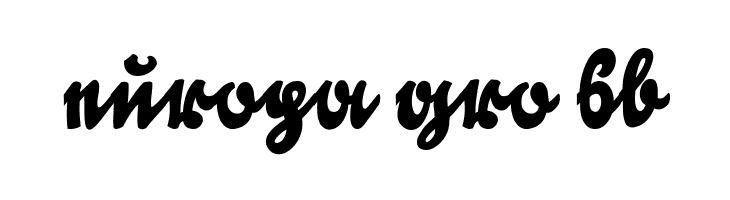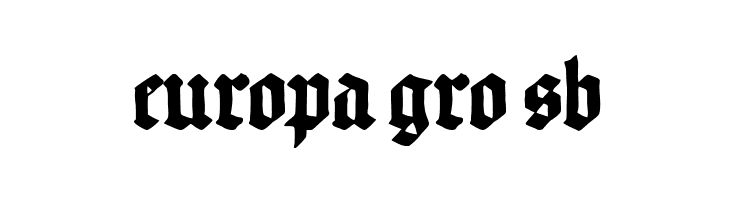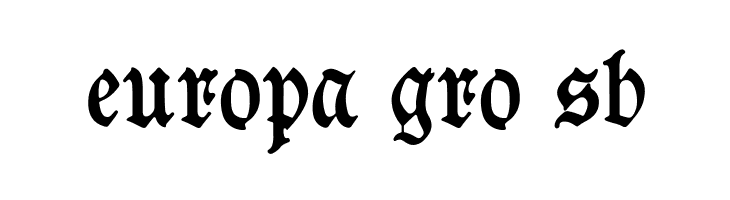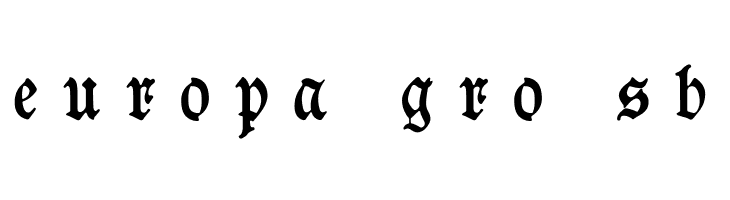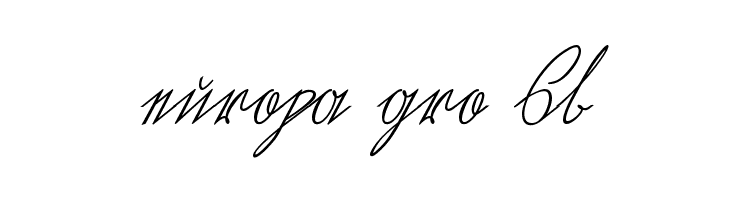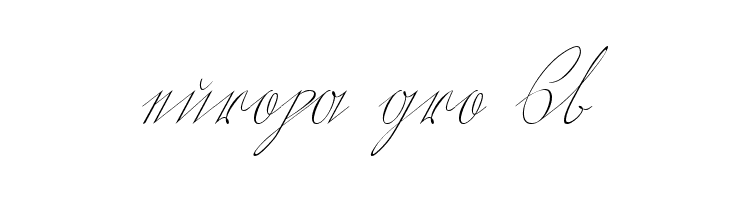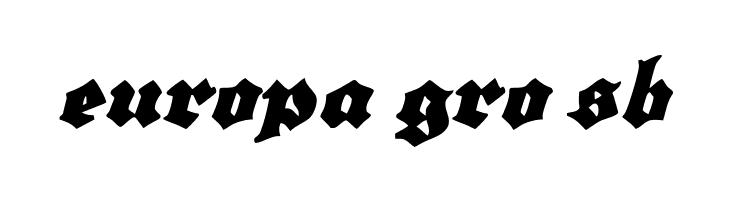
• Discipuli Britannica Bold
A bold, cursive font with smooth, flowing lines and connected letters.
• Discipuli Britannica
An elegant, flowing script font with connected characters and medium contrast.
• GoldmarieUNZ1T#
A bold, expressive script font with flowing, cursive letterforms and ornate details.
• HandTextur
A bold, decorative blackletter font with intricate, angular letterforms.
• Zyxali
• Goeschen Fraktur UNZ1A
A detailed Blackletter font with ornate, medieval-inspired design.
• Goeschen Fraktur UNZ1A Italic
A traditional blackletter font with ornate, angular letterforms and a medieval aesthetic.
• WiegelKurrentUNZ1T-Bold
An elegant, flowing script font with intricate calligraphic details.
• WiegelKurrentUNZ1T
An elegant, high-contrast script font with flowing, cursive letterforms.
• Grobe Plakat Fraktur
A bold, dramatic Blackletter-style font with sharp, angular lines and intricate detailing.